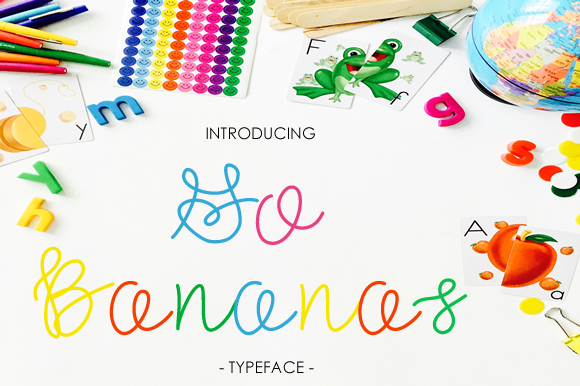
Go Bananas Font
About Go Bananas Font
Go Bananas is a thin, monoline cursive font that will add tons of style and refinement to your work. This font is reminiscent of the careful measure of a young person learning cursive for the first time.